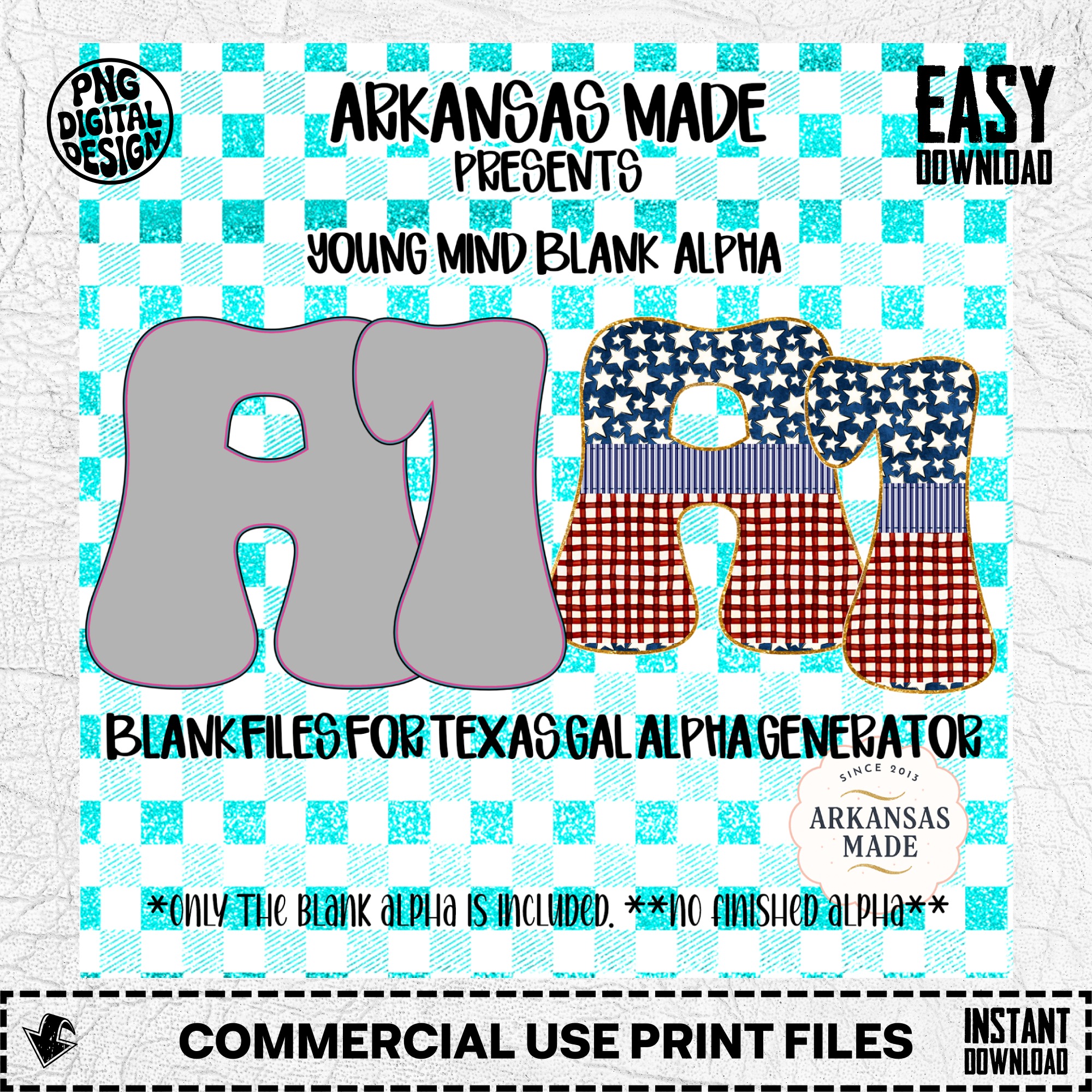
Young Mind Blank Alpha PNGs for Texas Gal Alpha Generator | Digital Download Custom Font Cricut Sublimation Ready Letters
Get the Young Mind Blank Alpha PNGs, perfect for your Texas Gal Alpha Generator. This digital download offers versatile, customizable letters for all your creative projects! Unleash your creativity with this playful, bubble-letter style blank alpha. Ideal for crafters, small business owners, and DIY enthusiasts, these high-quality files are ready for sublimation, Cricut, and other digital design applications. Create personalized gifts, unique apparel, or stunning graphic designs with ease.